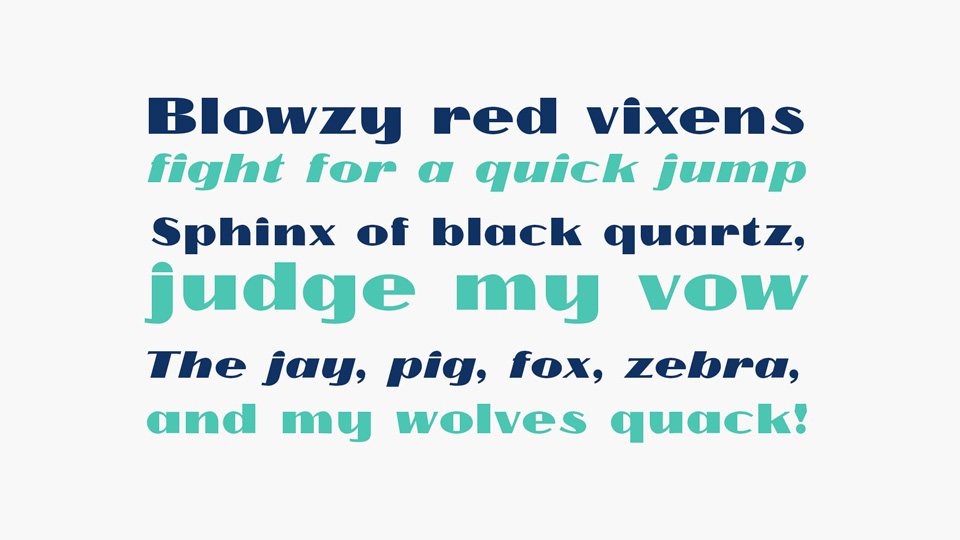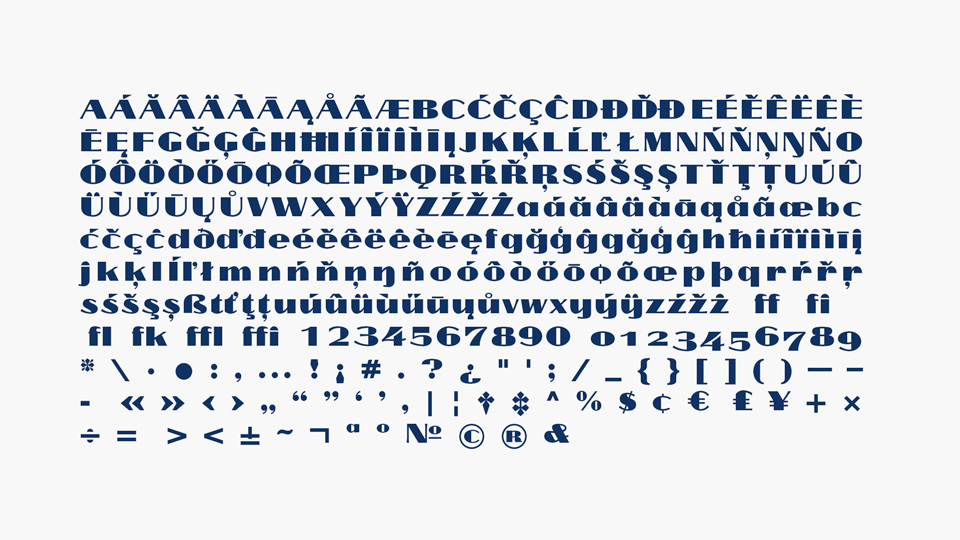
Cyklop is a sans serif typeface with a highly modulated stroke so it has high typographic contrast. The vertical stems are much heavier then horizontal ones. Most characters have thin rectangles as additional counters giving the unique shape of the characters. The typeface was designed in the 1920s at the workshop of Warsaw type foundry “Odlewnia Czcionek J. Idzkowski i S-ka”.
Cyklop was heavily used for heads in newspapers and accidents prints. Typesetters used Cyklop in the inter-war period, during the occupation in the underground press. The typeface was used until the beginnings of the offset print and computer typesetting era. Nowadays it is hard to find the metal types of this typeface.